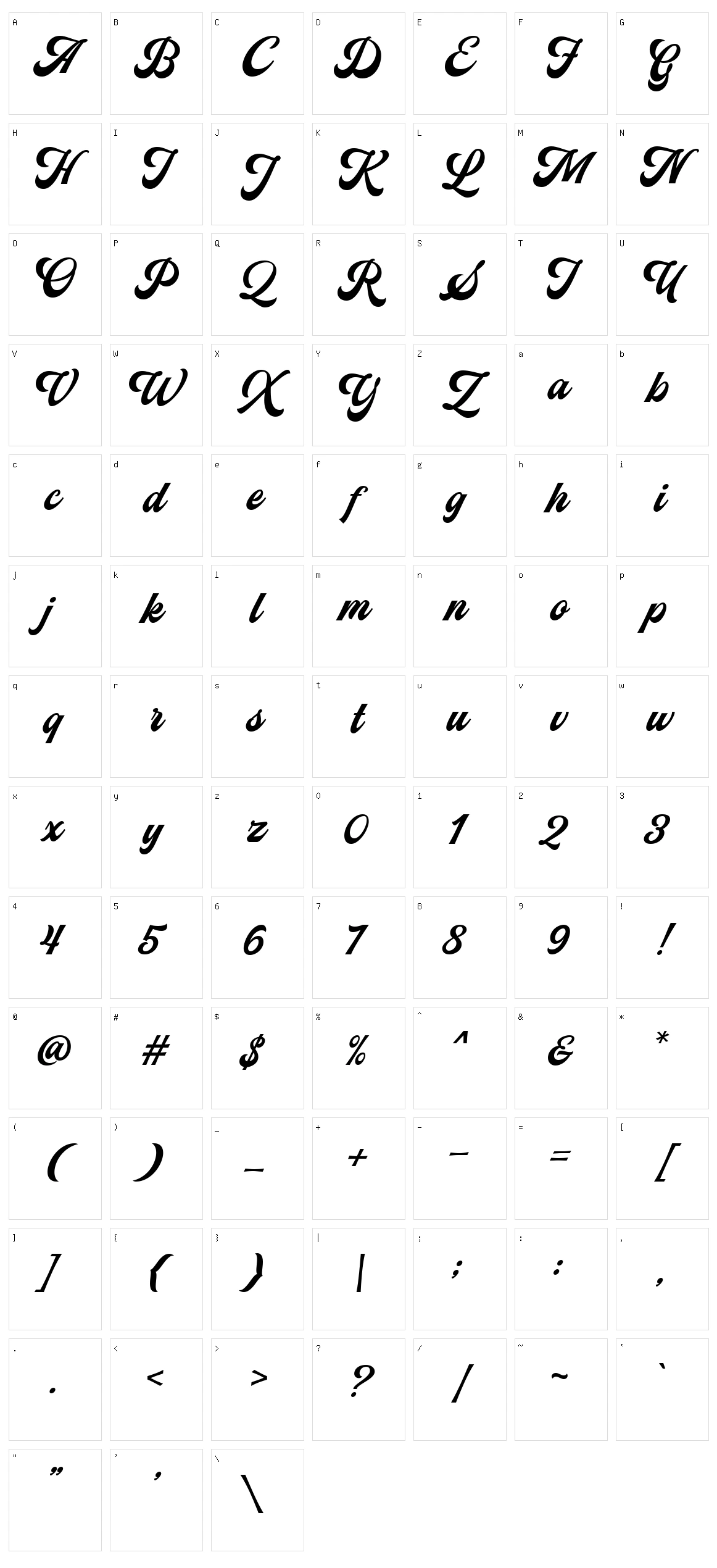
The free font Streetball is carefully designed by Redy Studio, showcasing a thoughtful balance of creativity and usability and falls under the Old-School font style. When you download the ZIP file, it contains only 26.97 KB of font files, making it lightweight and quick to download. Please review the license details below to understand permitted usage and distribution rights. If license information is not available, we recommend using this font for personal projects only or contacting the author directly for commercial usage permissions.